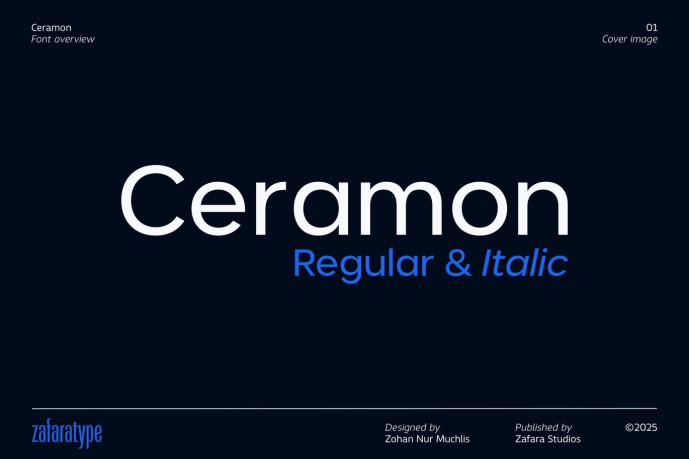
Ceramon is a modern geometric sans serif that blends minimalist structure with refined curves and meticulous detailing. Its clean, balanced letterforms ensure high legibility and lend a contemporary, versatile tone—ideal for branding, editorial, UI design, signage, packaging, and more.
Extended Latin support
426 glyphs, including: Uppercase & lowercase, Punctuation & math symbols, Multilingual support, Case-sensitive forms, Standard ligatures, Localized forms, Ordinals, fractions, subscript & superscript, Historical forms